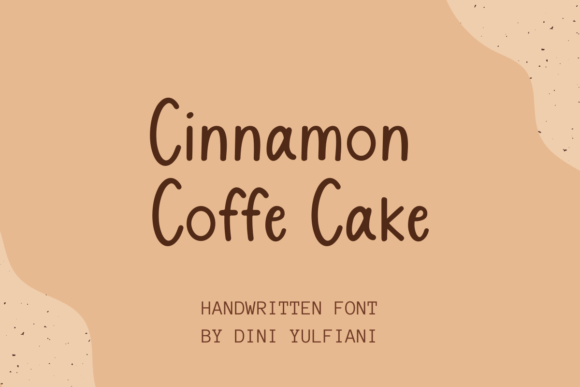
Adding a Touch of Warmth to Your Designs
As designers, we’ve all been there – staring at a blank page, trying to bring a new project to life. The perfect font can make all the difference, and that’s exactly what we’re excited to share with you today. Imagine a handwritten font that exudes warmth and coziness, perfect for creating a sense of comfort and approachability in your designs.
Meet the Cinnamon Coffe Cake Font, a clean and tidy handwritten font that’s designed to make your branding, titles, and social media posts stand out. Whether you’re working on a new logo, product packaging, or web design, this font is sure to bring a touch of personality to your work. With its versatility and charm, the Cinnamon Coffe Cake Font is a valuable addition to any designer’s toolkit.
Cinnamon Coffee Cake Font Key Features
- Unique Characteristics: This font features a warm and inviting design, reminiscent of cinnamon coffee cake. It includes intricate details and textures that evoke a sense of comfort and nostalgia.
- Font Style: Script, Handwritten, Decorative
Cinnamon Coffe Cake Font Review
I recently had the chance to work with the Cinnamon Coffe Cake Font, and I must say it’s a unique and charming addition to any design project. ✨ The font’s warm and inviting aesthetic makes it perfect for food-related branding, packaging, and advertising.
Here are some of the things that worked well for me:
- ✨ The font’s irregularities and imperfections give it a handcrafted feel that’s hard to replicate with more uniform fonts.
- ✨ The font’s warm and earthy tones are reminiscent of freshly baked goods, making it a great fit for bakeries, cafes, and other food-related businesses.
- ✨ The font’s versatility allows it to be used in a variety of contexts, from logos and headers to body text and labels.
- ⚠️ The font may be too playful or whimsical for more formal or professional projects, so it’s essential to consider the tone and audience before using it.
- ⚠️ The font’s irregularities can make it more difficult to read in certain situations, such as at small sizes or in complex layouts.
Overall, I think the Cinnamon Coffe Cake Font is a great addition to any designer’s toolkit, but it’s essential to use it thoughtfully and consider its limitations. With the right project and audience, it can be a real showstopper.
Use the Cinnamon Coffe Cake font to create a warm and inviting atmosphere in your designs.
Pair it with other fonts that complement its rustic and vintage feel.
Experiment with different font sizes, colors, and styles to achieve the desired effect.
The Cinnamon Coffe Cake font is ideal for:
Food and beverage branding
Home decor and furniture designs
Rustic and vintage-themed designs
Q: Are there any font variations or customization options available for the Cinnamon Coffee Cake Font?
Yes, the Cinnamon Coffee Cake Font includes various font styles, including regular, bold, italic, and bold-italic. Additionally, the font supports OpenType features such as ligatures, swashes, and ornaments, which can be accessed through compatible software applications.